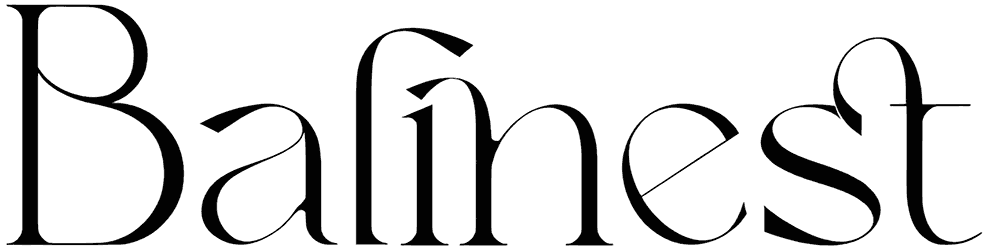
Balinest Font
If you want to create a balance between decorative and flashing fonts on the one hand and elegant and standard fonts on the other hand, Balinest is one of the best choices.
This retro font has a solid emotional background with a classic look that can convey your message with a bold approach. You can use this ligature font on book covers, websites, urban advertisements, and posters so that your content is not affected by unnecessary decorations and is easy to read.